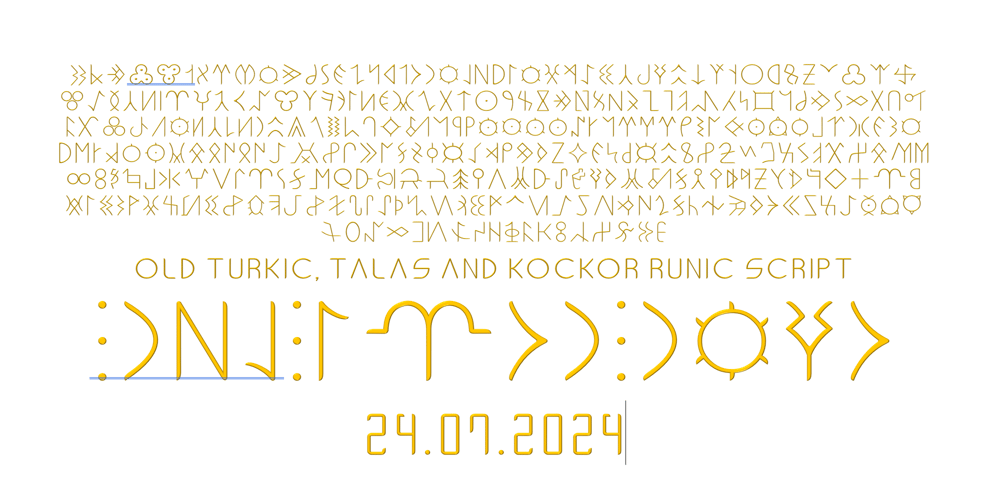
Ongunkan Old Turkic Talas Kocko Font Family was designed by Osman Nuri ALKAN and published by Runic World Tamgacı. Ongunkan Old Turkic Talas Kocko contains 1 styles and family package options. This font contains characters from Talas inscriptions and Koçkor inscriptions.The old Turkic inscriptions found along the river Talas on border between Kazakhstan and Kirghizia, are named Talas inscriptions. Inscriptions found in this region are nearby 30. There are inscriptions found along the rivers Talas, Syrdaria, Ile, Irtysh in Kazakhstan. These monuments are kept in museums of Bishkek, Taraz, Almaty, St.-Petersburg.The chief of district, regional specialist V.A.Kallaur together with teacher Gastev had found 3 rounded stone boulders with inscriptions in gorges Airtam-Oi, Kalba on 8 km from Talas town (Aulieata district) in 1896-1898.A.Heikel had headed expedition of Finno-Ugric society which found out two more stones with inscriptions in 1898.The tetrahedral stick with old Turkic writings found on district Achiktash along the river Talas in 1932.Talas inscriptions are designated by numbers: the first, the second, the third, etc. inscriptions. These written monuments concern to times of Turks, the states Turgesh and Karluq in historical aspect.Text researches of Talas inscriptions conducted by W.Radloff, A.Heikel, J.Nemet, S.E.Malov, H.Orkhun, A.M.Sherbak, I.A.Batmanov, C.Zhumagulov, A.S.Amanzholov, etc. scientists.